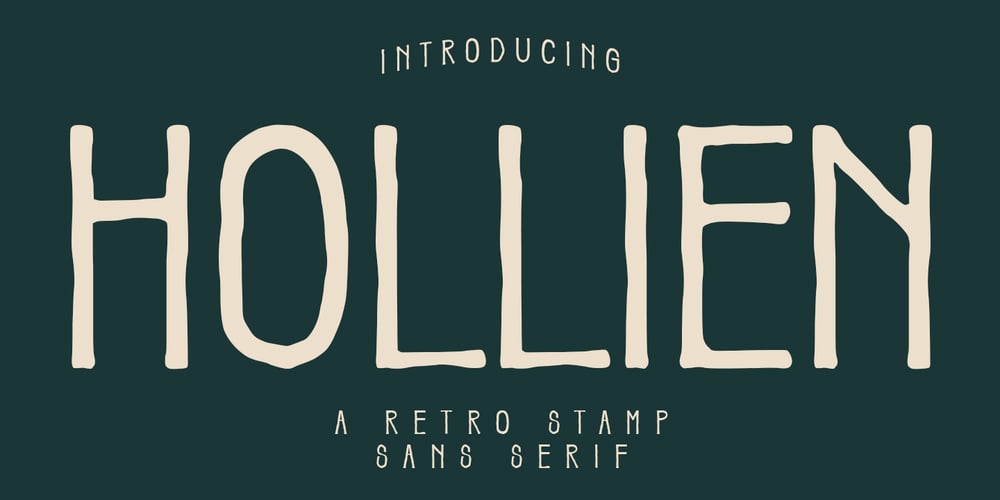
MC Hollien Font Family was designed by Gilang Maulana and published by Maulana Creative. MC Hollien contains 1 styles and family package options. Hollien is a Hand-lettered font inspired by the vintage 70’s sign board, music, shop and movies, it has a rough stroke outline and then we fill it. Hollien includes opentype features Alternate. It support multilingual more than 100+ language. This font is good for logo design, Movie Titles, Books Titles and any awesome project you create. Make a stunning work with Hollien Rough sans font.Cheers,Maulana Creative